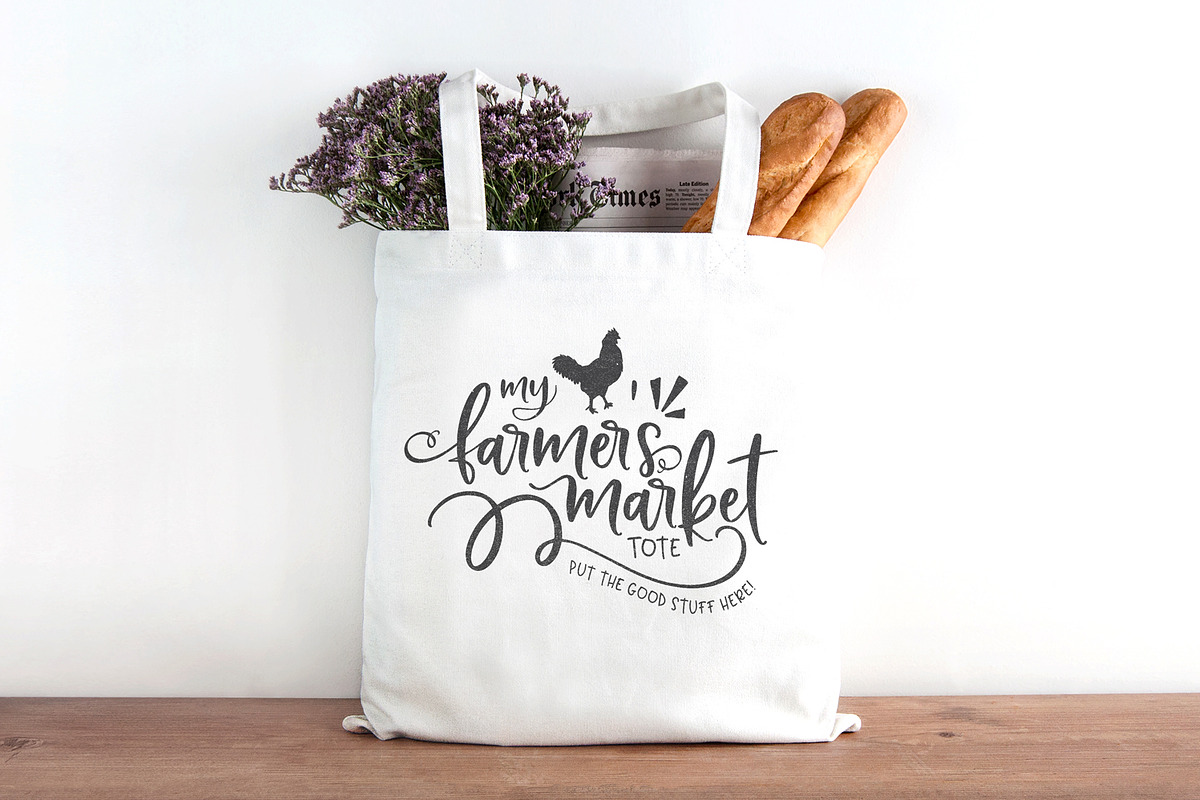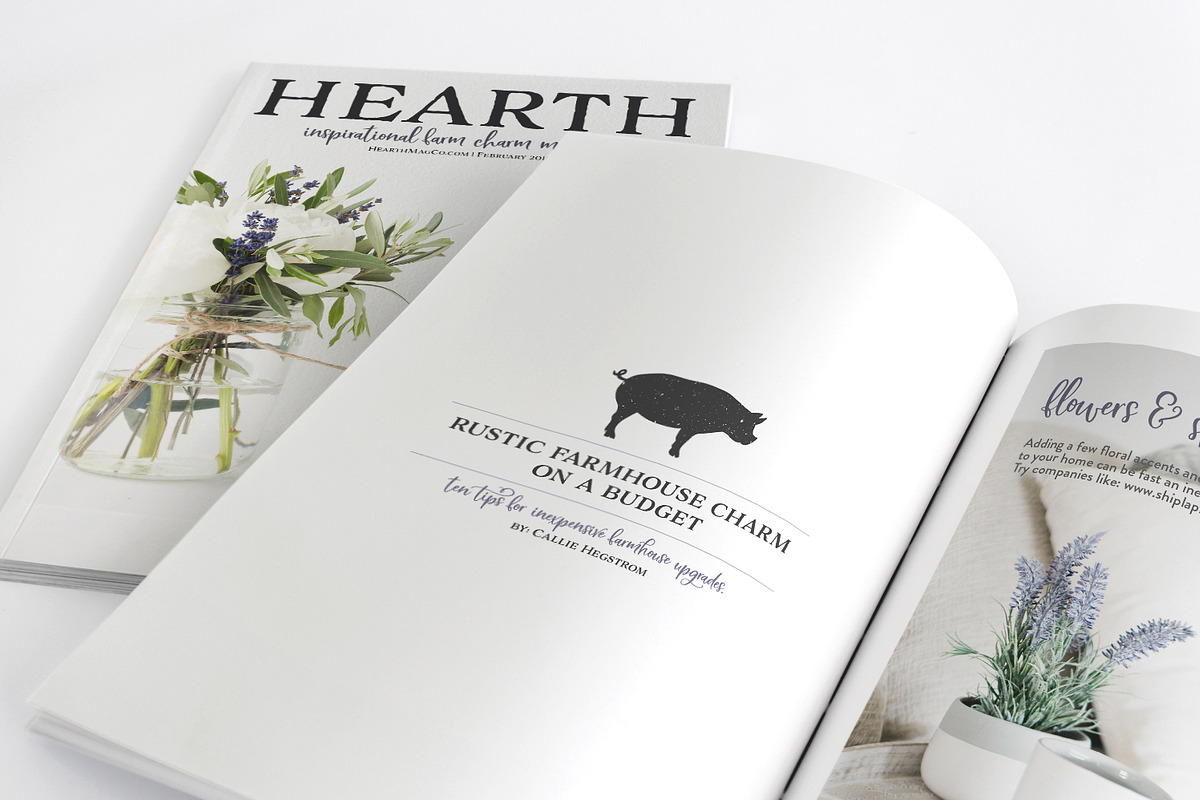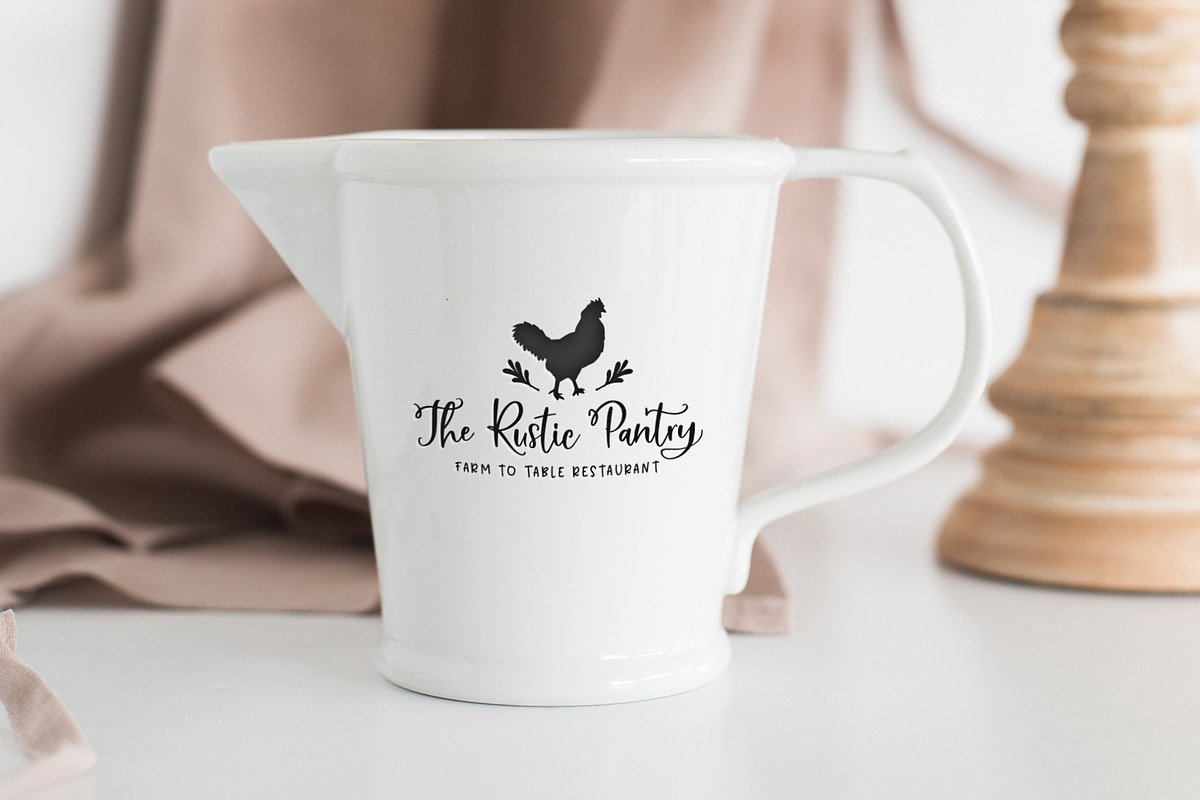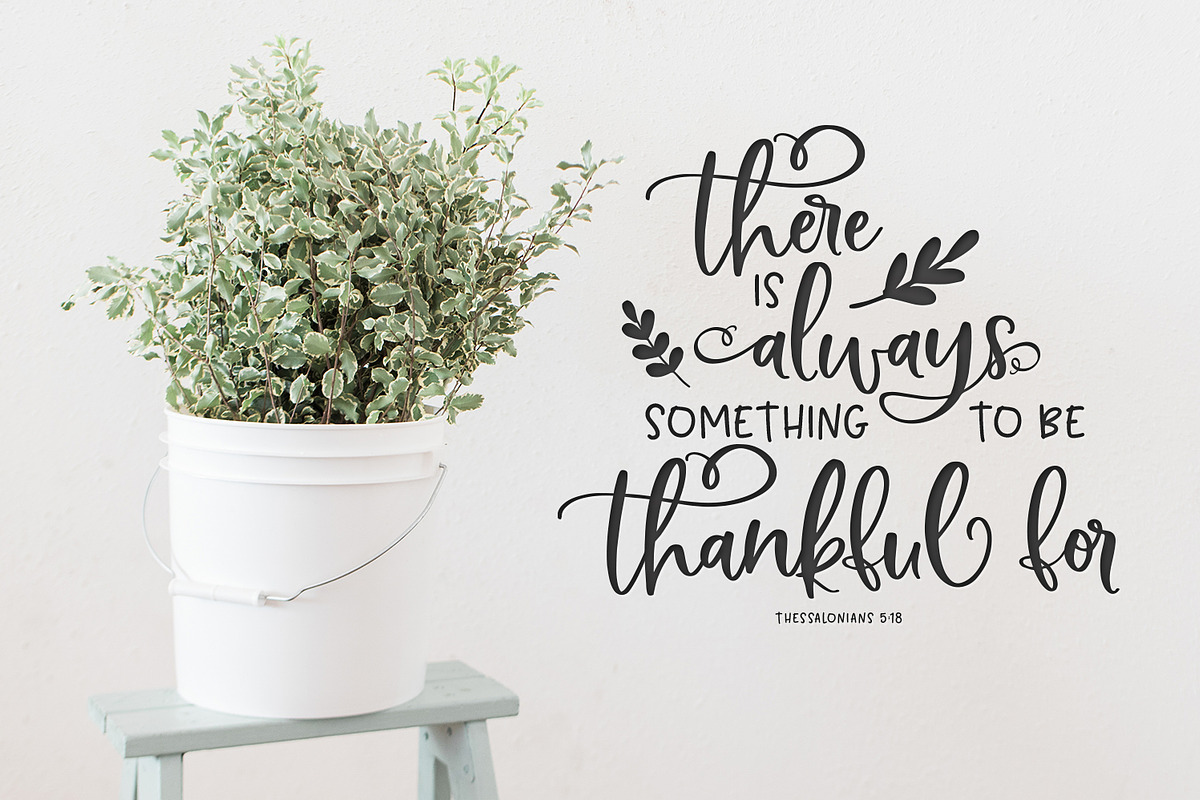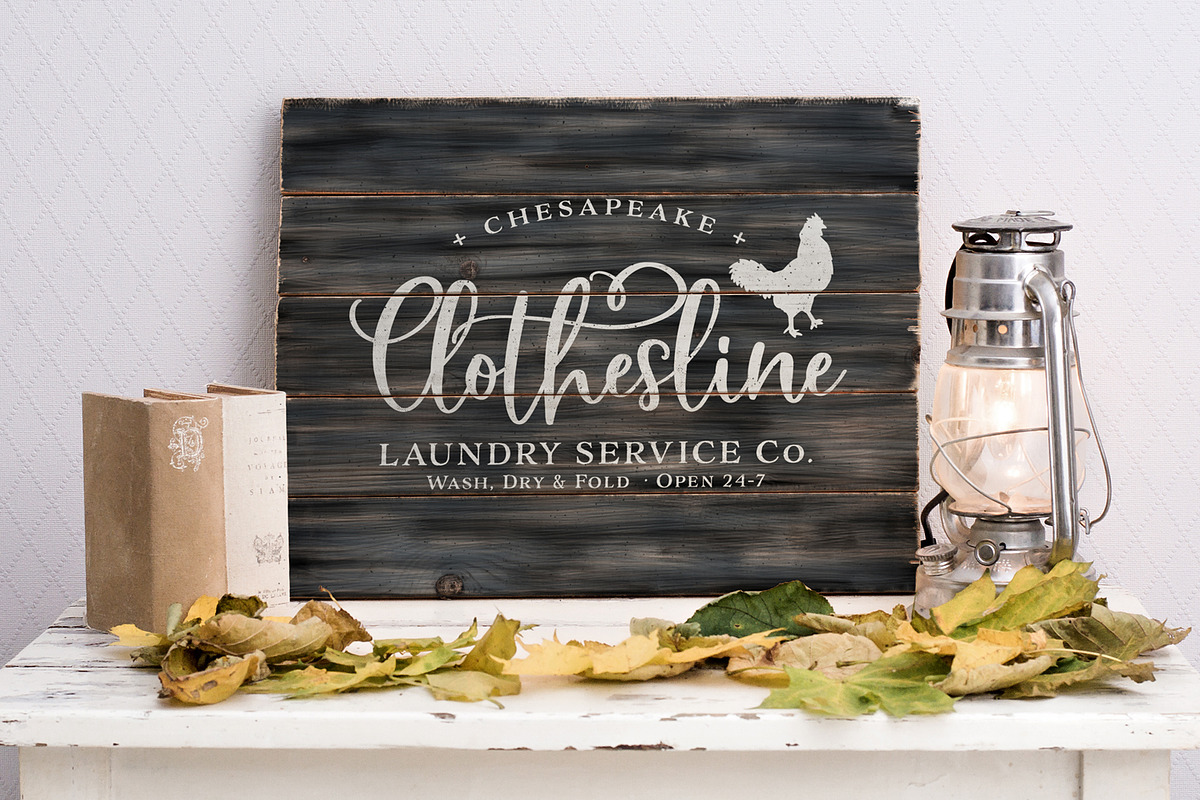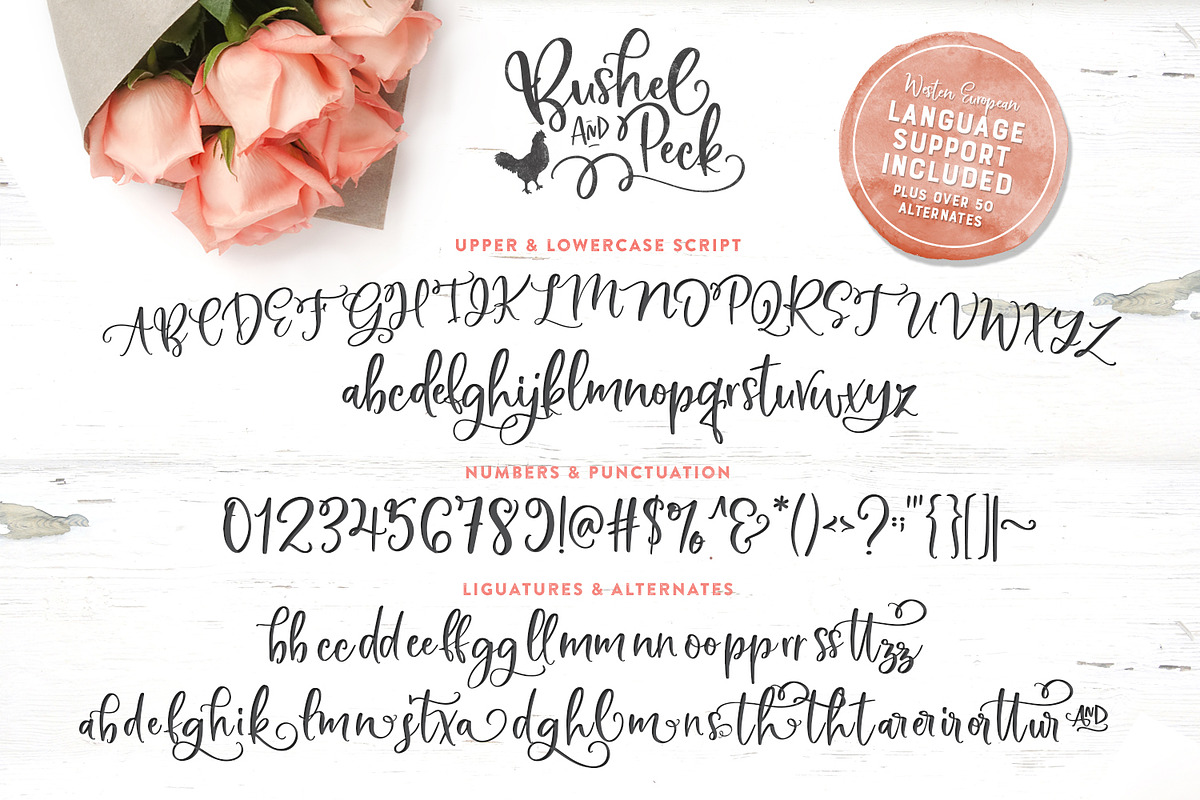
Bushel & Peck Fonts & Logos
I've had a crazy number of requests for a smooth farmhouse script. Apparently there are a lot of folks out there with Cricut and Silhouette machines. 😉👍🏼 And news flash! You also can't get enough of that gorgeous, farmgirl style! Can't say I blame ya. ;)
Introducing Bushel and Peck- A flirty, bouncy, SMOOTH script with over 50 alternate characters, a truck-full of vectors and bushel-basket of logos. (See what I did there). 😉
Bushel & Peck Script (OTF & TTF) - A flirty decorative script, with over 50 alternates, Western European language support, and LOADS of personality.
Bushel & Peck Italic (OTF & TTF) - An italic version, because sometimes you just need italic. ;)
Bushel & Peck Sans Serif (OTF & TTF) - A simple all-uppercase, handwriting font to compliment your script.
Please Note this font is SMOOTH. If you plan on using a Silhouette or Cricut machine, you're in luck. These fonts were made for YOU!